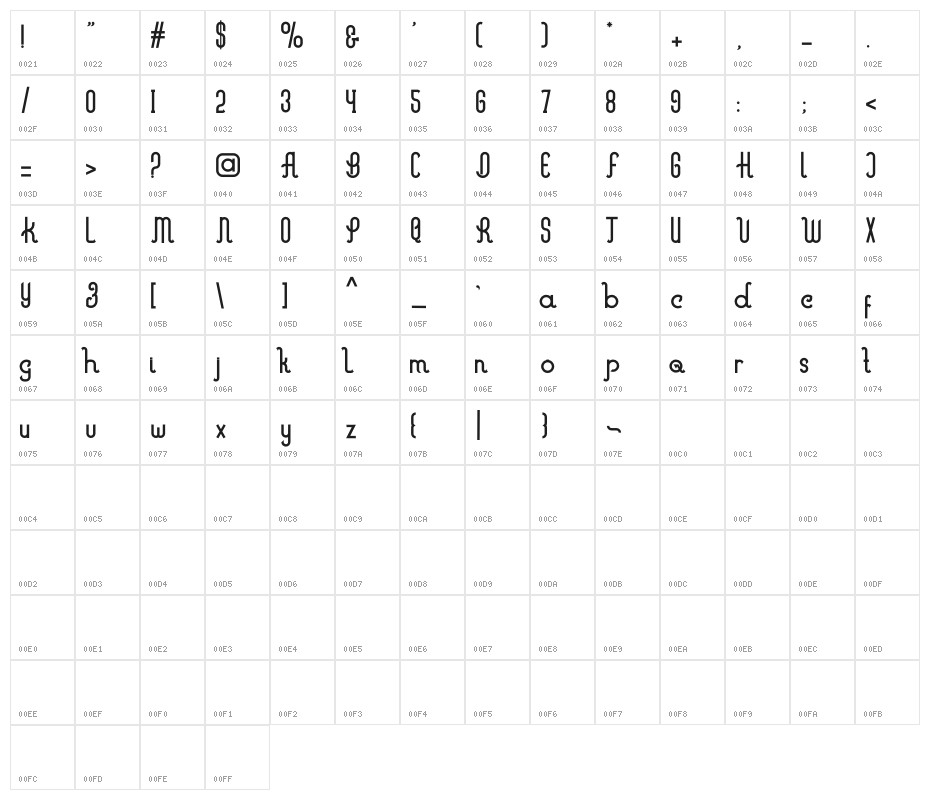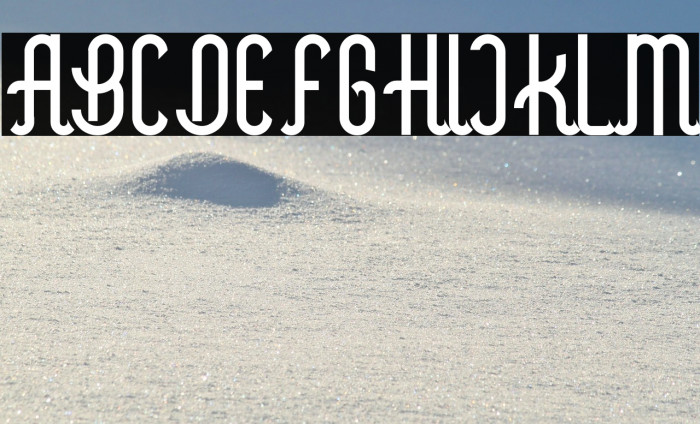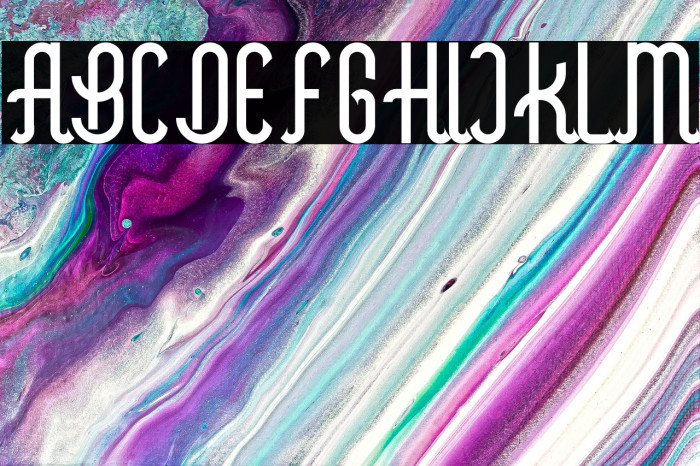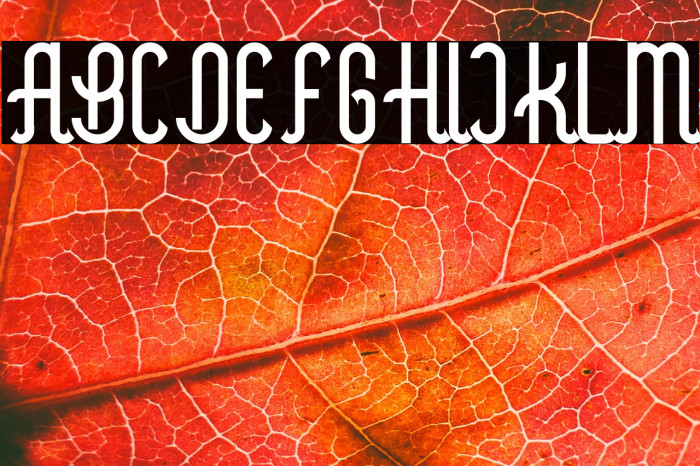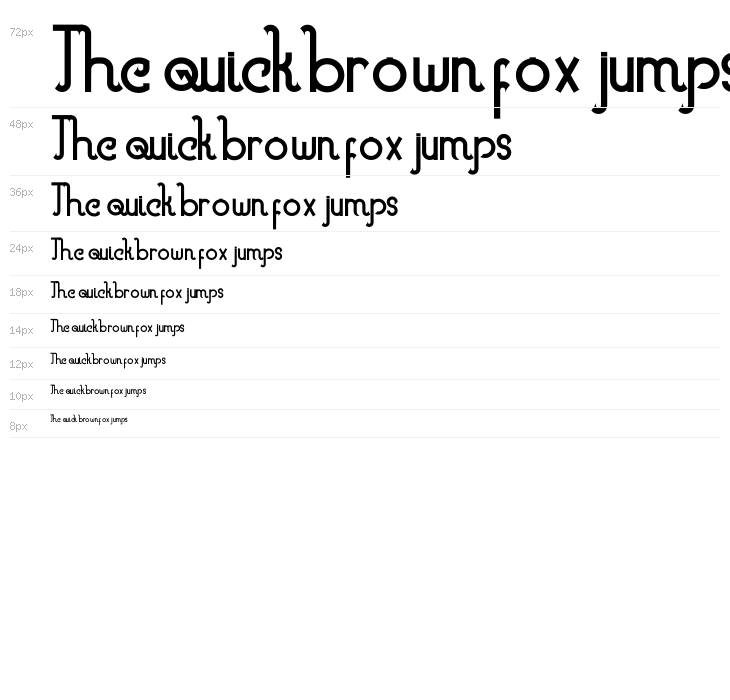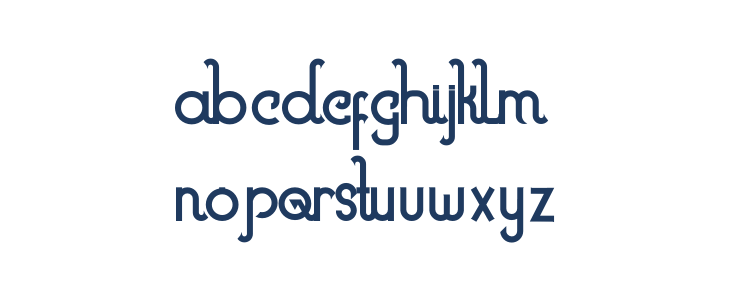
Marvelous Font
Marvelous Description
This font features a unique and artistic design with elongated, narrow characters and a distinctively modern flair. The uppercase letters are tall and slender, with a playful twist in their structure, giving them a decorative appearance. The lowercase letters maintain a consistent style, with rounded edges and a smooth flow that complements the uppercase set. The numerals are clear and legible, following the same narrow and elongated style. Special characters are creatively integrated, adding to the font's overall artistic appeal. This font's design is both eye-catching and versatile, making it suitable for a variety of creative projects.
| Proposed Projects | Ideal for branding, posters, invitations, and any project requiring a modern, artistic touch. |